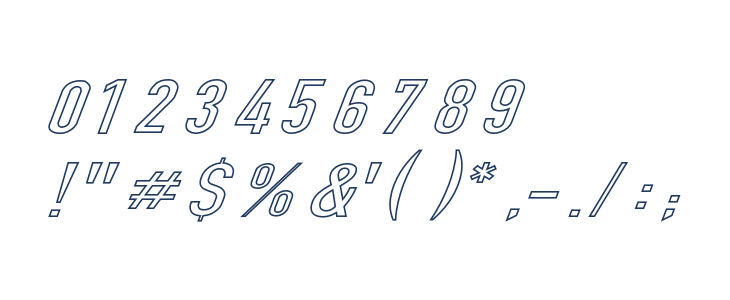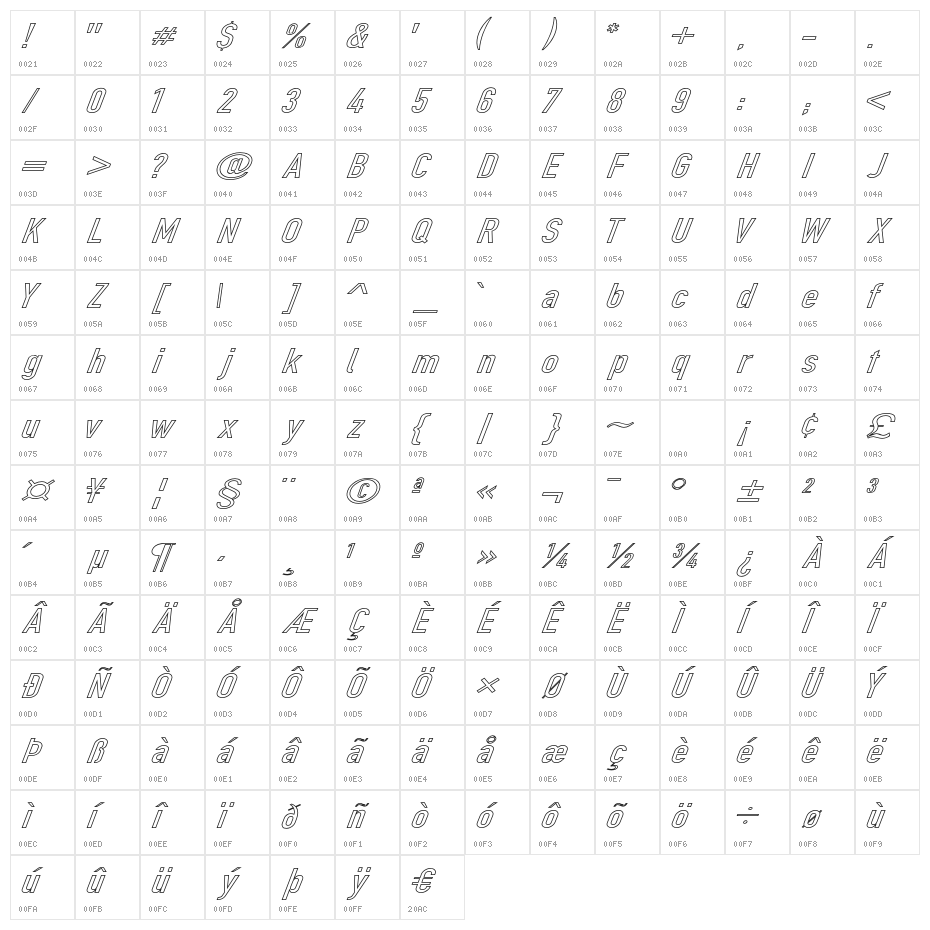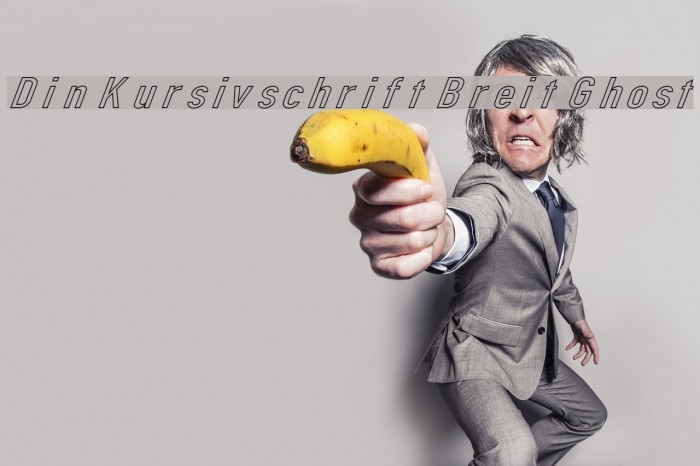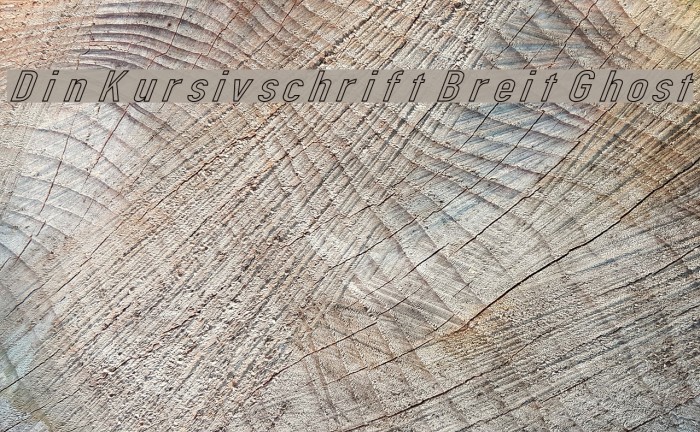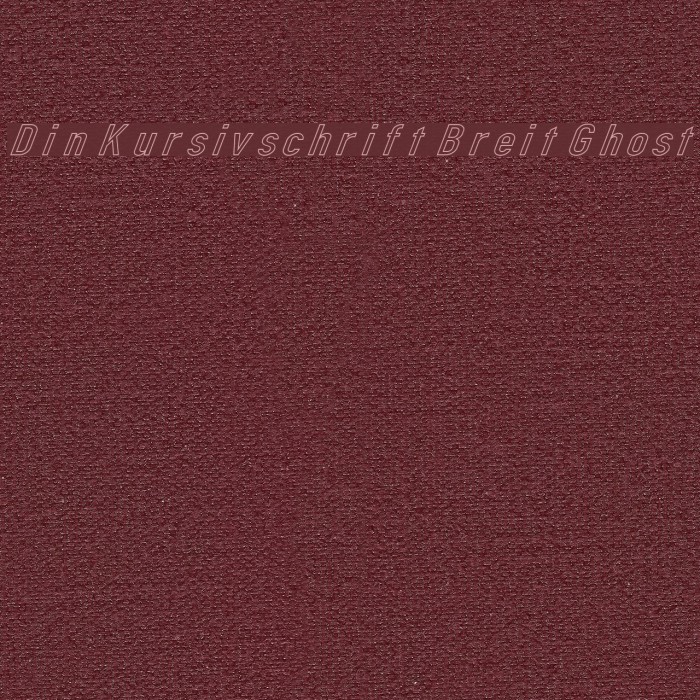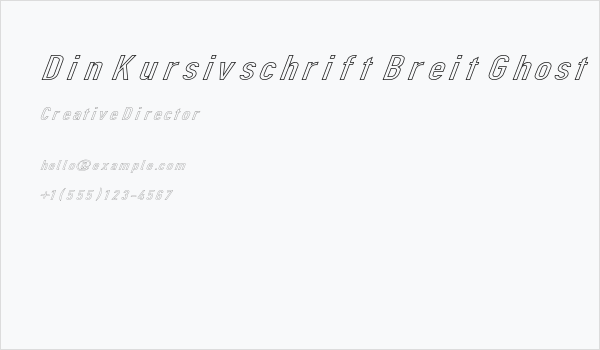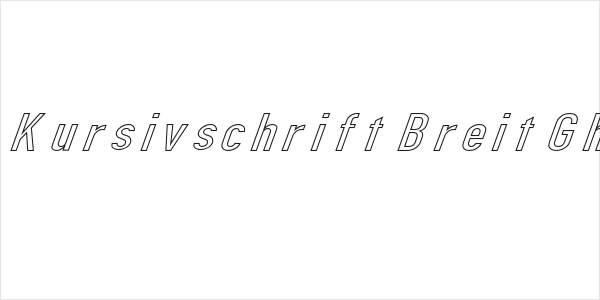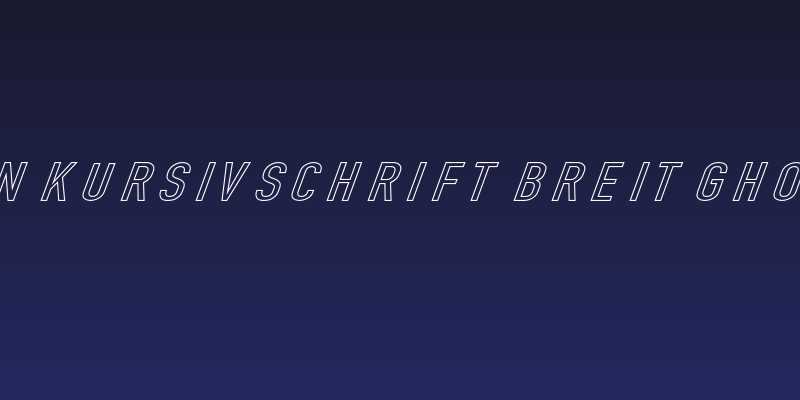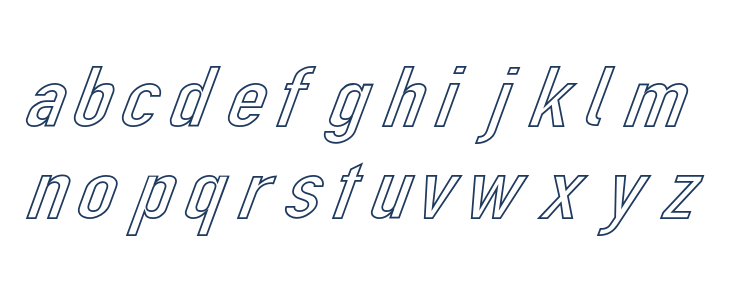
Din Kursivschrift Breit Ghost Font
Din Kursivschrift Breit Ghost Description
This font features a modern and sleek design with an italicized style, characterized by its open, outlined letterforms. The uppercase and lowercase letters maintain a consistent slant, giving a dynamic and forward-moving appearance. The numerals and special characters follow the same italicized and outlined style, ensuring uniformity across all characters. The font's structure is clean and geometric, making it suitable for a variety of design applications where a contemporary and stylish look is desired.
| Proposed Projects | Ideal for branding, advertising, and editorial design projects that require a contemporary and stylish aesthetic. |
Din Kursivschrift Breit Ghost